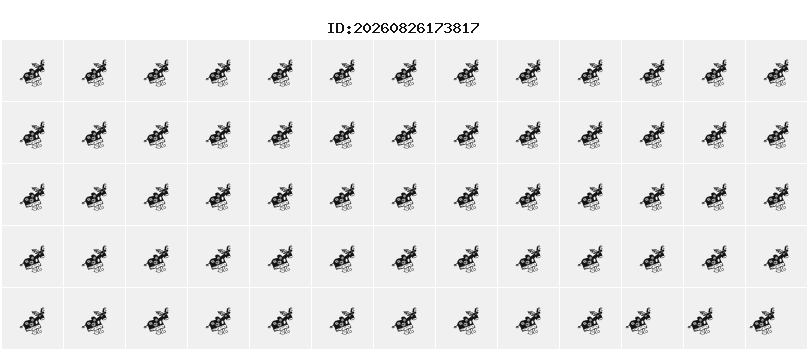
• Font Name: Xilo Cordel Literature I
• Designer: Galdino Otten
• Description: Cordel literature is type of a popular, originally verbal poetry, and later printed in rustic brochures or another quality of paper, displayed for sales hung in ropes or twines, what gave to origin to the name that comes there of Portugal. The covers of these booklets were made in xilogravure for being a cheap process. The drawings however follow a rustic style that inspires my work, this dingbat if it approaches this style of art more than